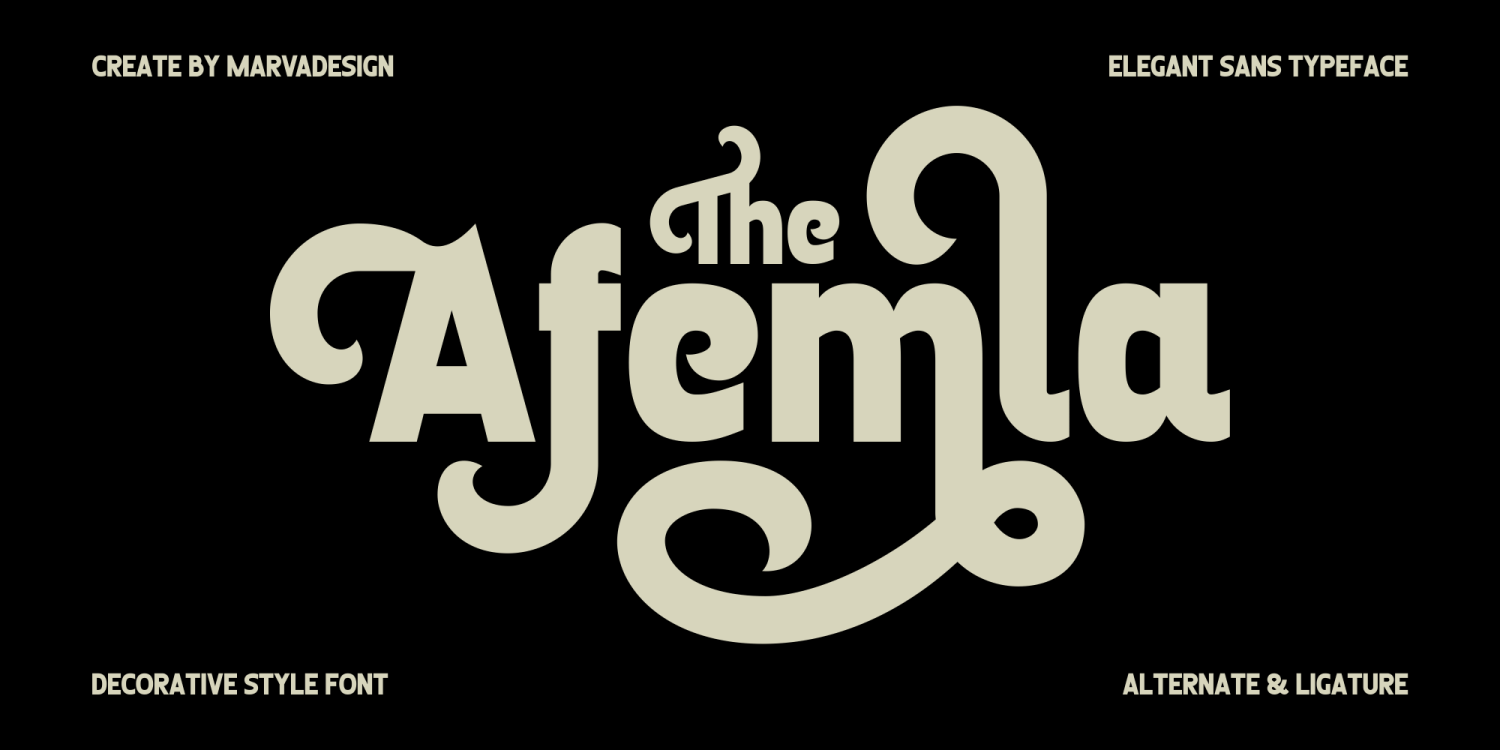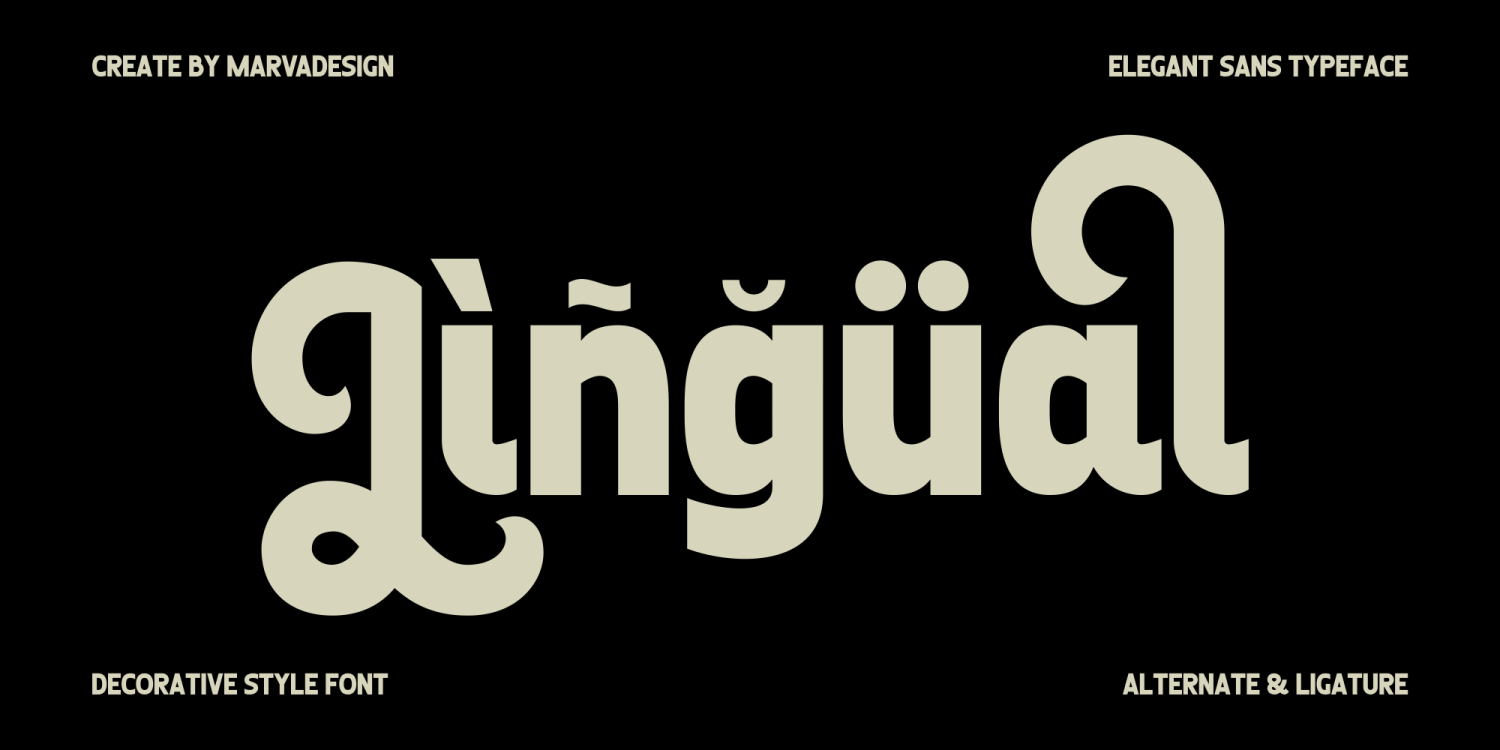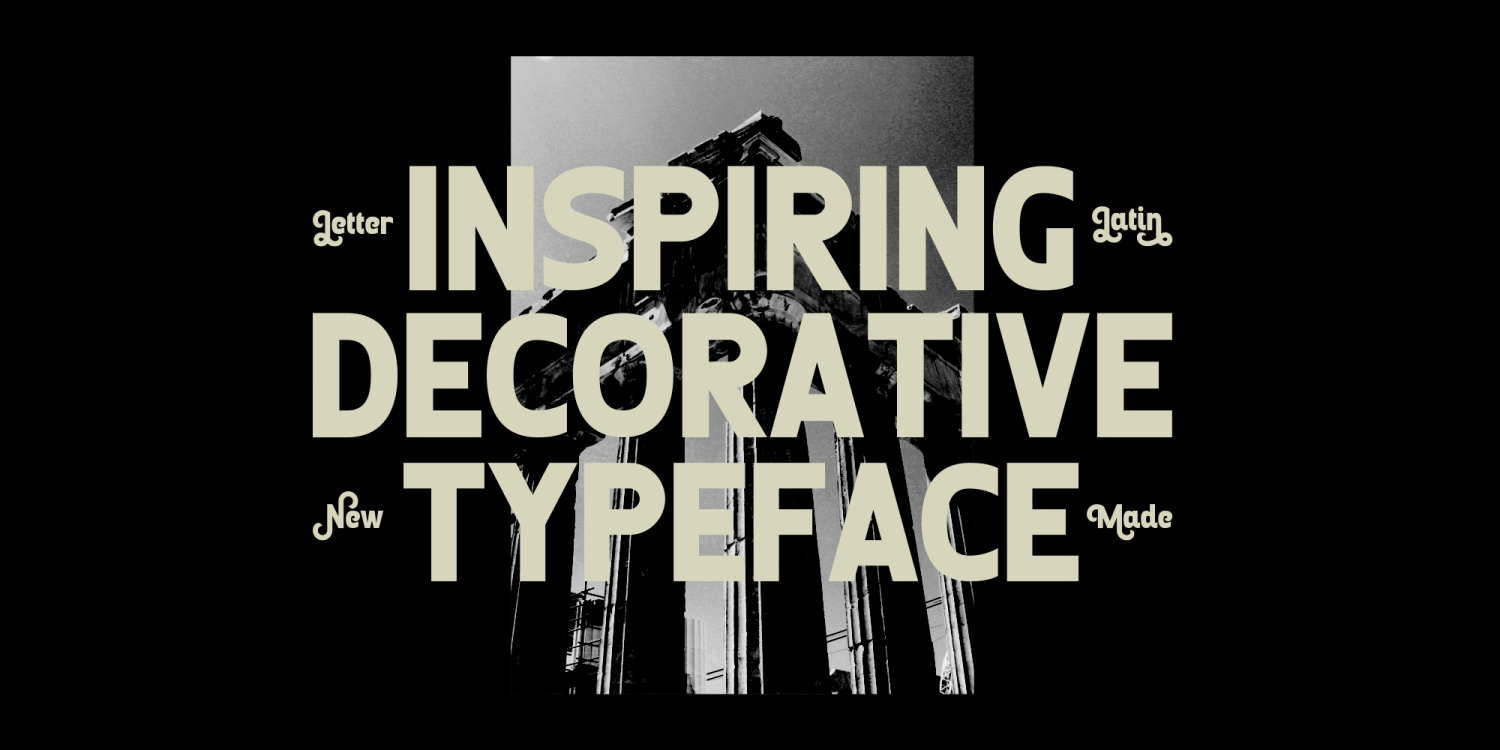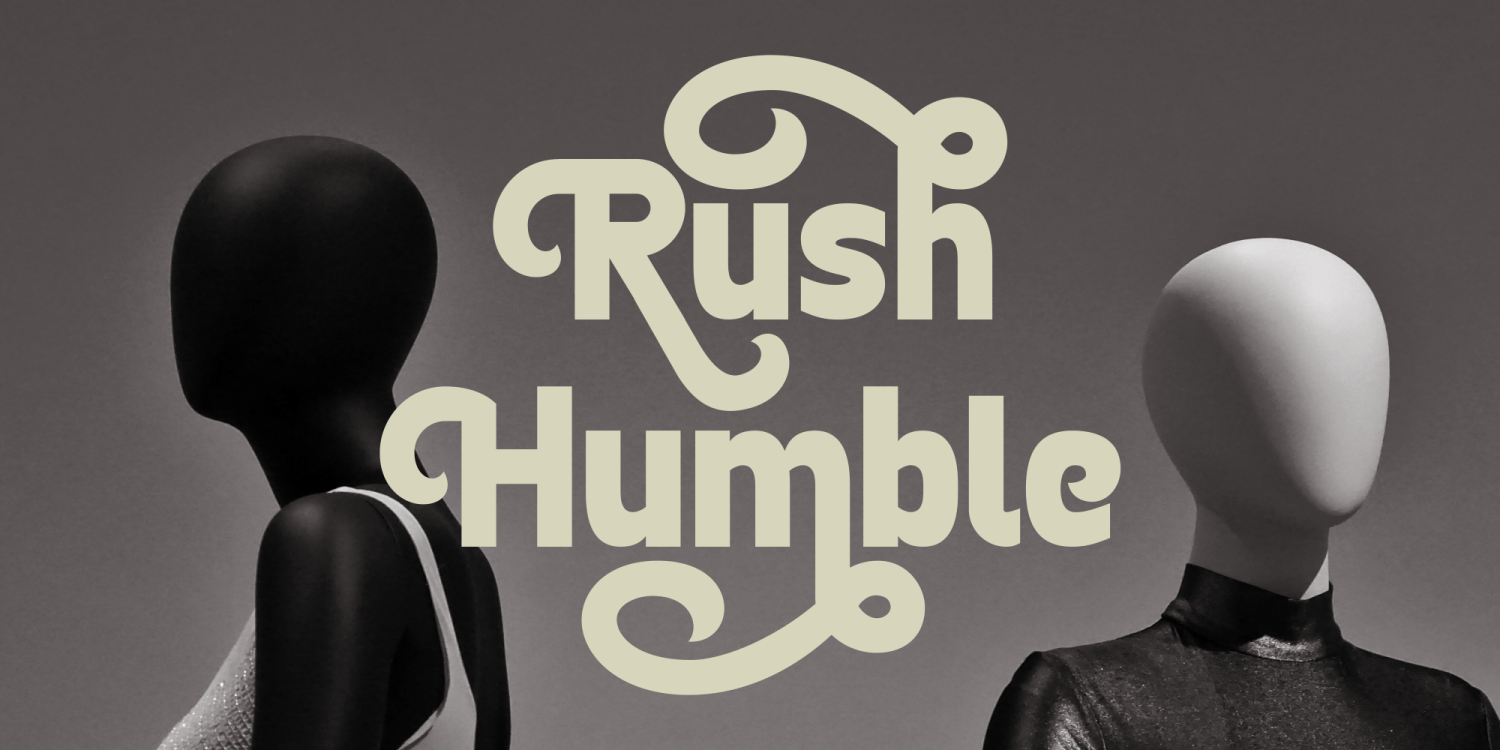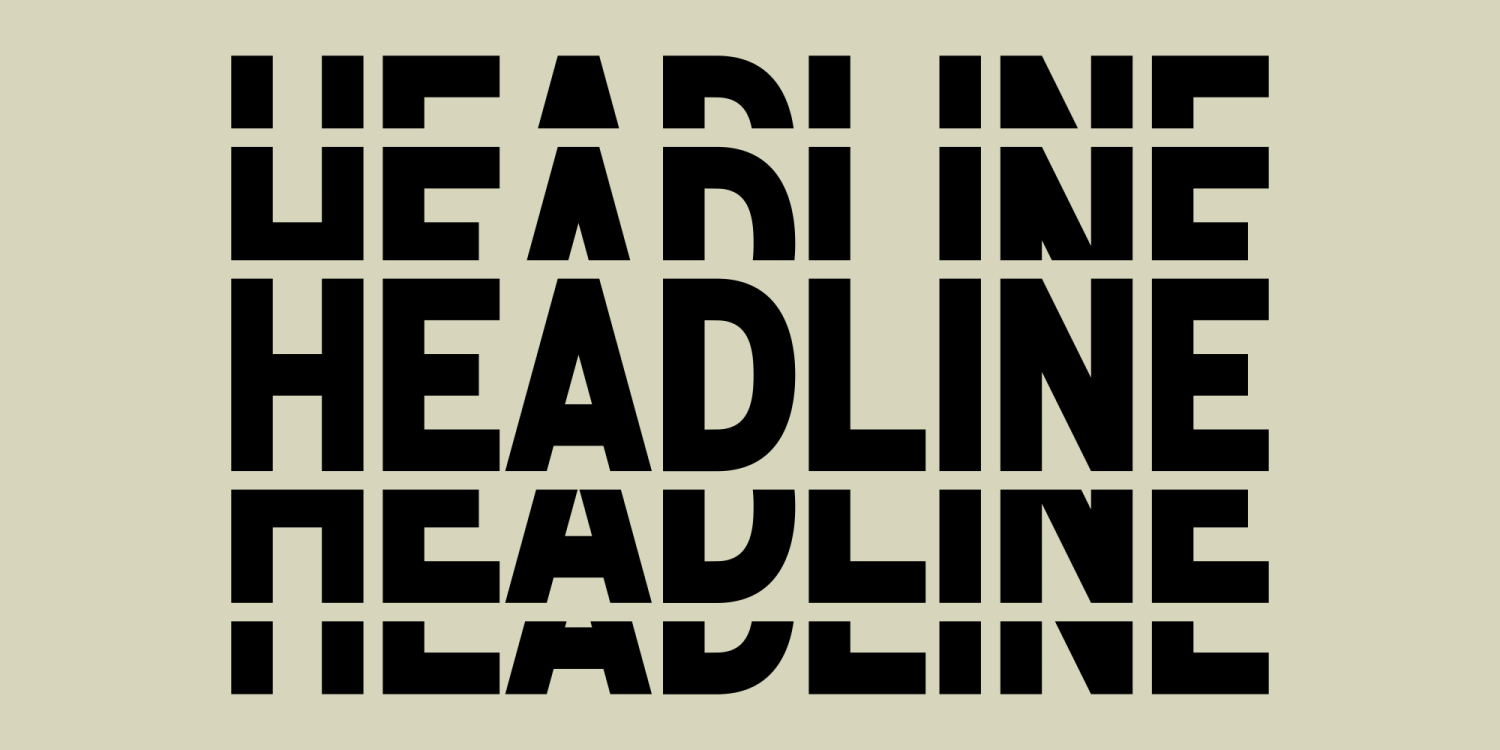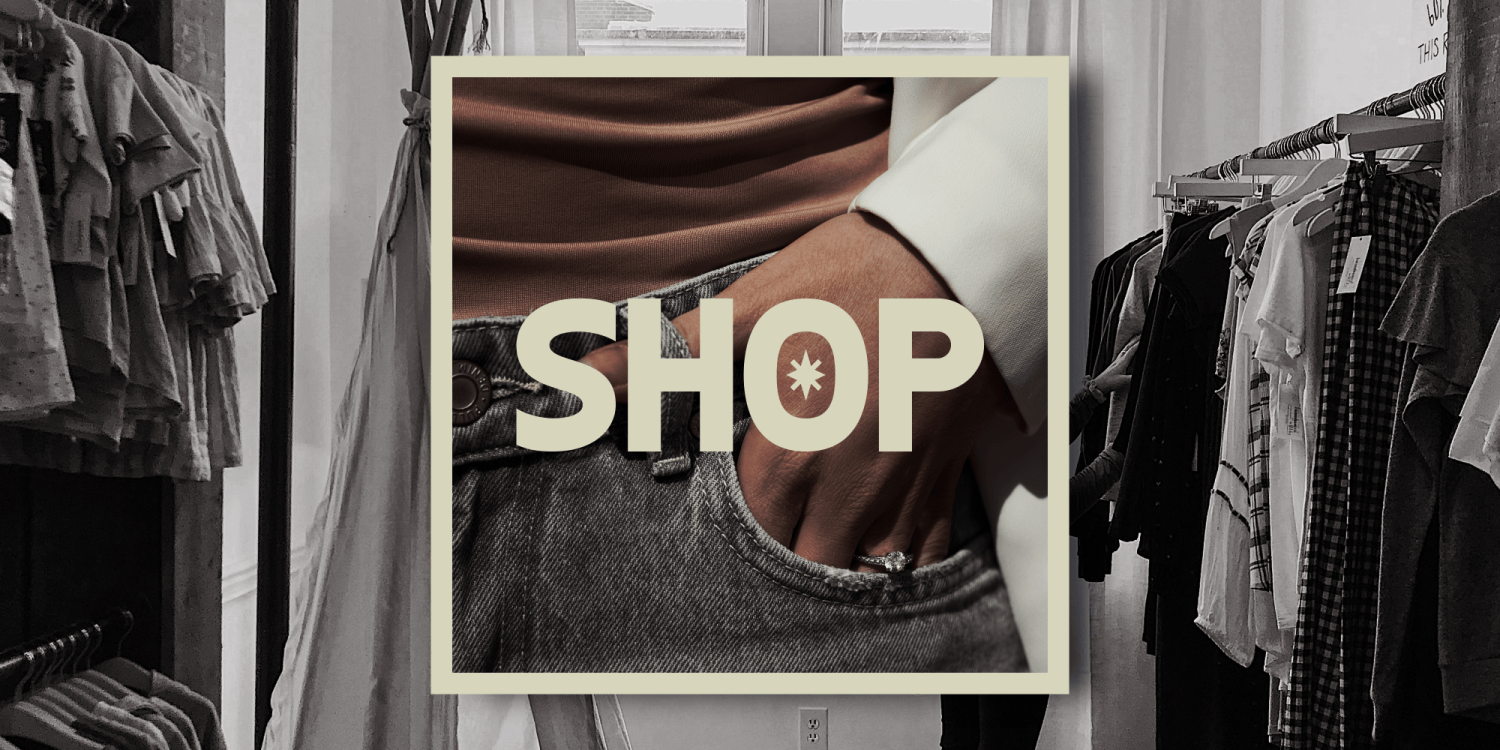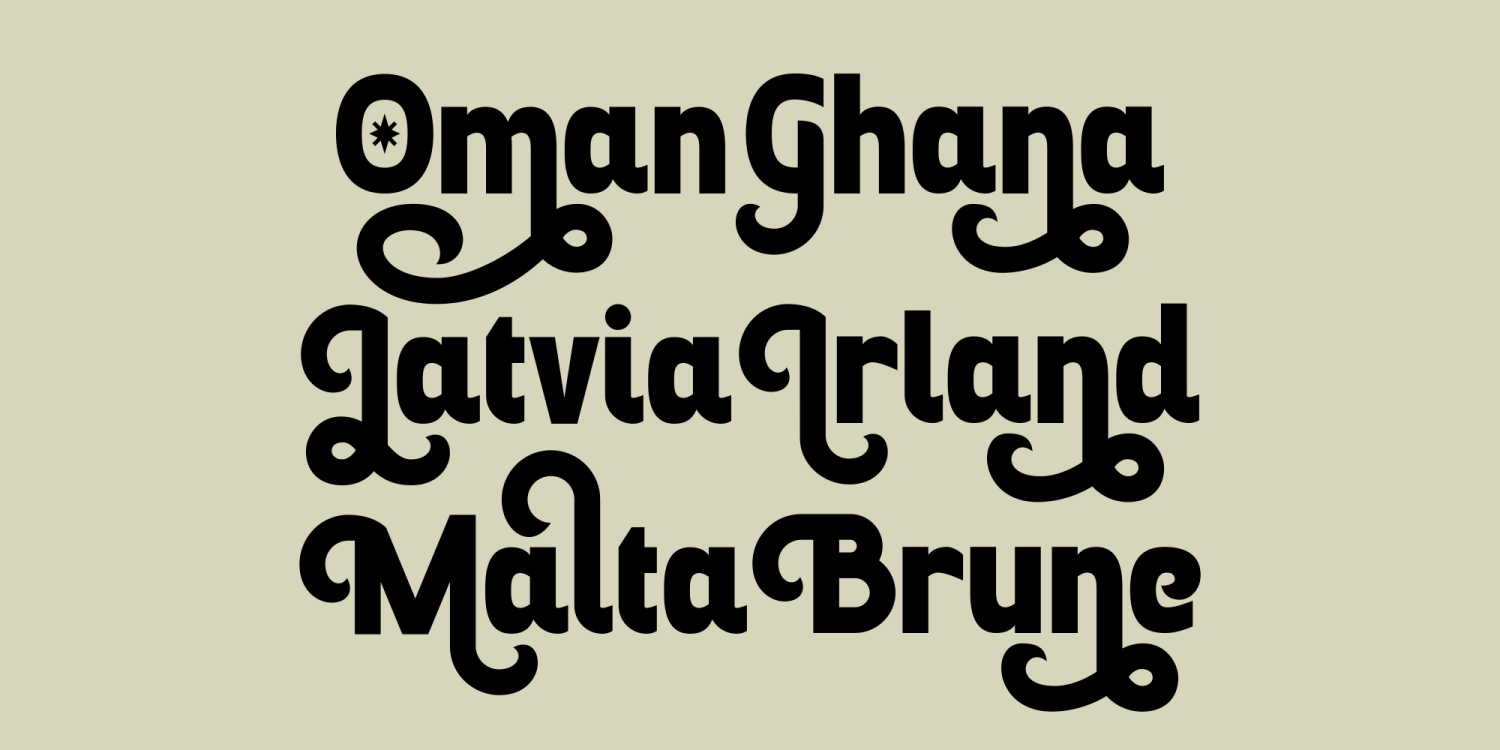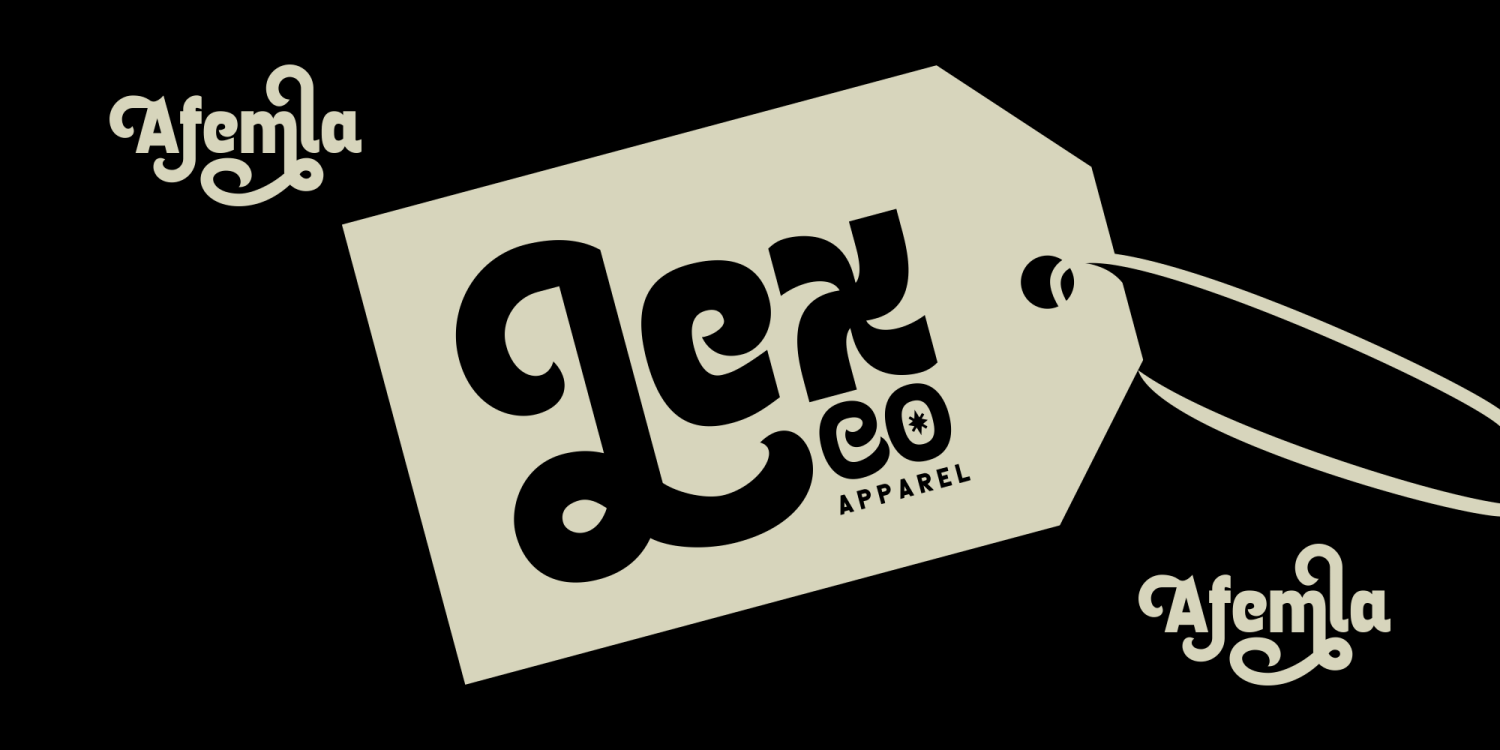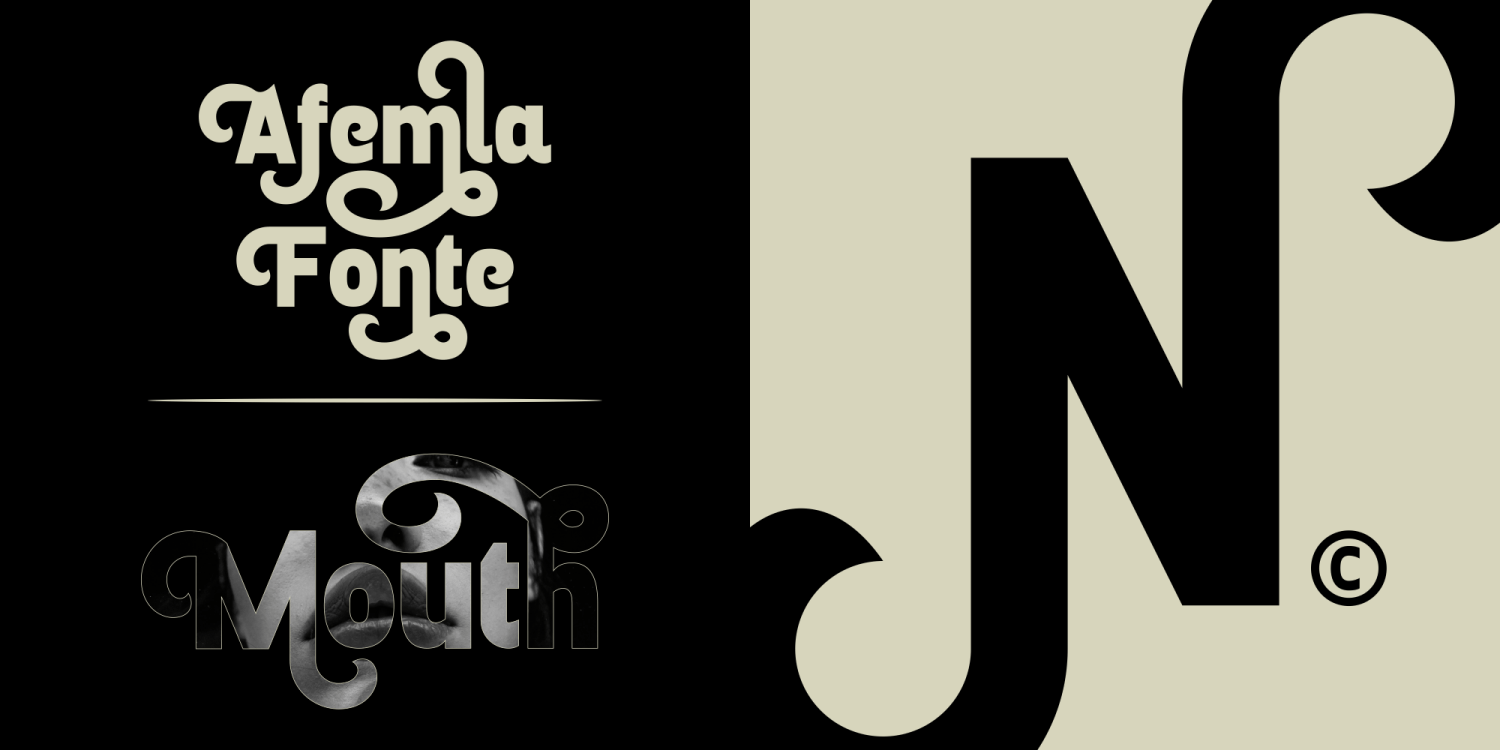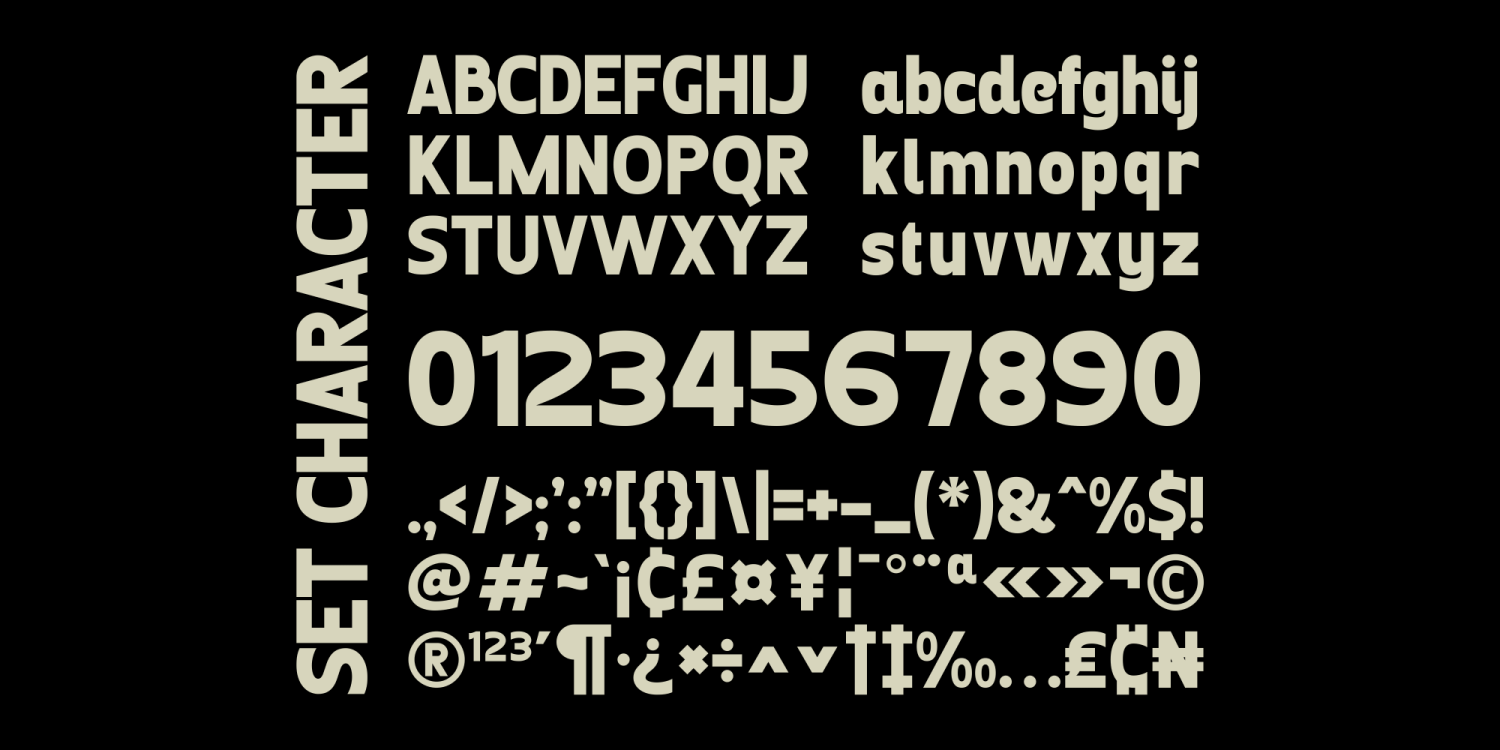
Afemla
Font Family by Marvadesign
Introducing Afemla is a sophisticated Elegant Decorative Sans Serif font that combines modern elegance with artistic flair. Designed to captivate, it offers a distinctive aesthetic that is both contemporary and timeless, making it perfect for high-end branding, editorial designs, and luxurious visual identities.